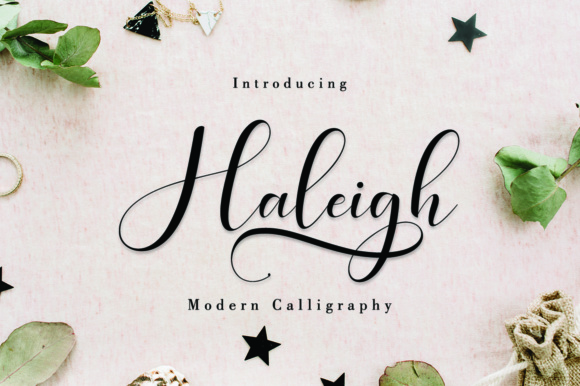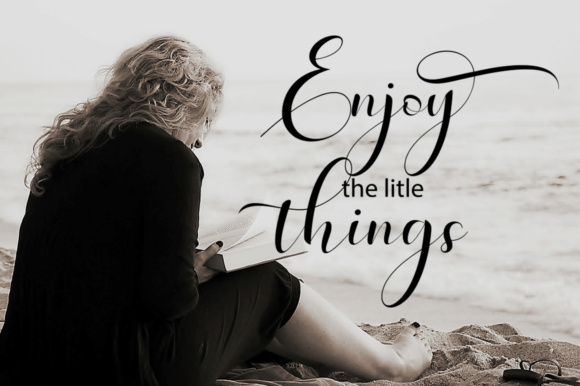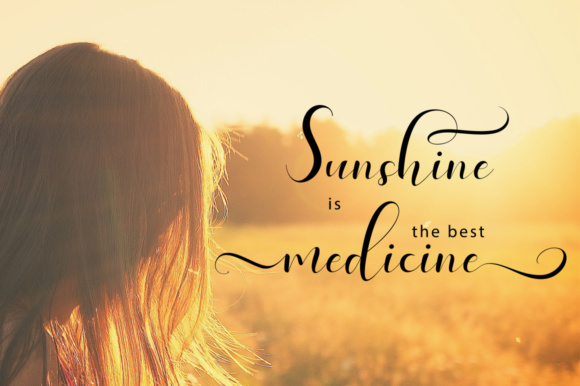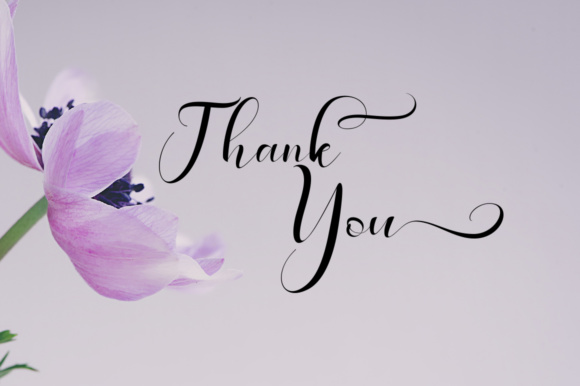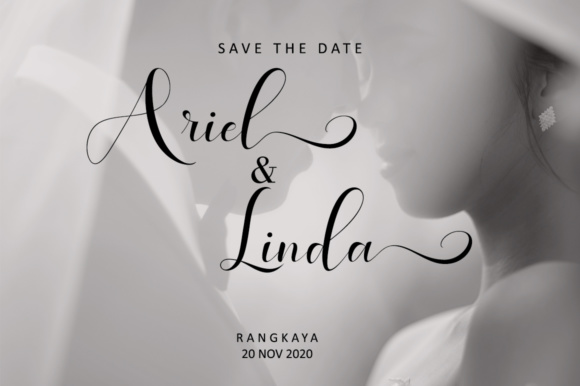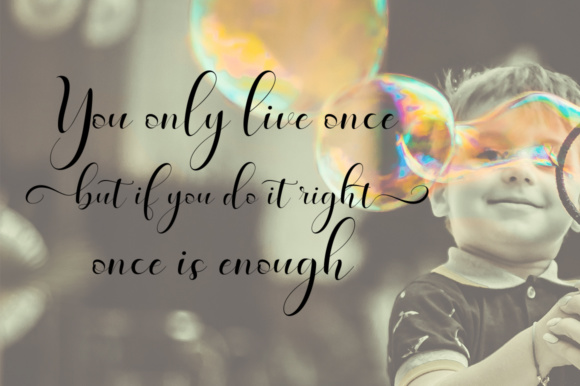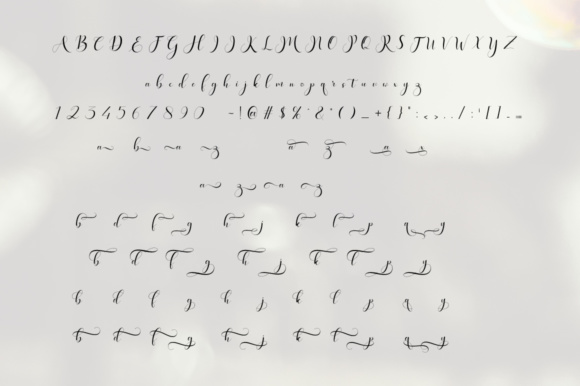
Haleigh Script Font
About Haleigh Script Font
The Haleigh is a modern calligraphy typeface with an elegant look. It’s prefect for every design that needs to look upscale and chic.